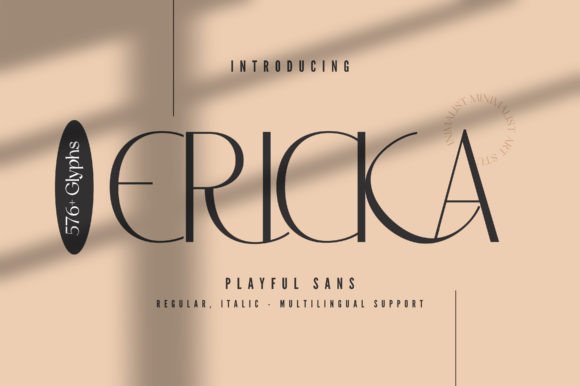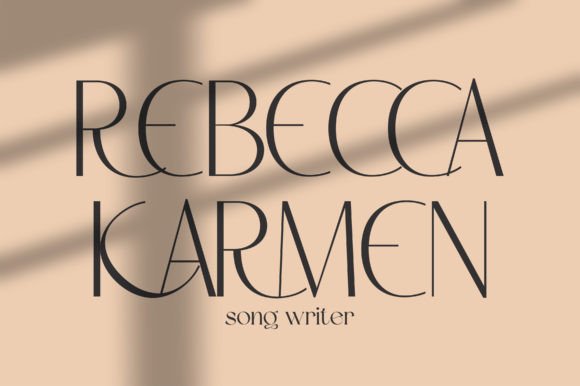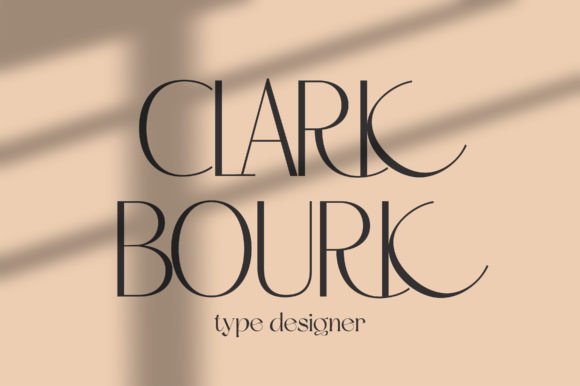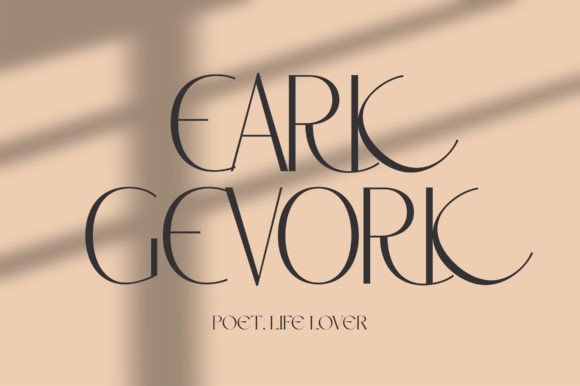
Ericka Font: Modern Minimalist Sans Serif for Elegant Logo Design
About the Ericka Font
The Ericka Font is here to transform your projects with its distinctive character and style. Introducing “Ericka” – the epitome of elegance and sophistication in a minimalist sans serif font.  Whether you’re designing a logo, website, or brand identity, “Ericka” is the perfect font to elevate your design to the next level. So why settle for ordinary when you can have extraordinary? Try “Ericka” today and discover the beauty of simplicity.
Ericka’s clean lines and delicate letterforms make it ideal for headlines, short text blocks in branding materials, and sophisticated packaging designs. Its minimalist nature lends itself well to creating a sense of premium quality. However, its thin strokes might prove challenging for body copy or long-form content, making it less suitable for websites with extensive text or UI elements.
Its elegant personality pairs beautifully with a warmer serif like Garamond for a classic contrast, or a geometric sans-serif like Futura for a modern, balanced aesthetic. For a more playful feel, consider pairing it with a handwritten script font like Allura, but use it sparingly as an accent.
Ericka projects an overall air of refined modernity. It suits brands aiming for a sophisticated, minimalist image—think high-end fashion, luxury goods, or contemporary art.